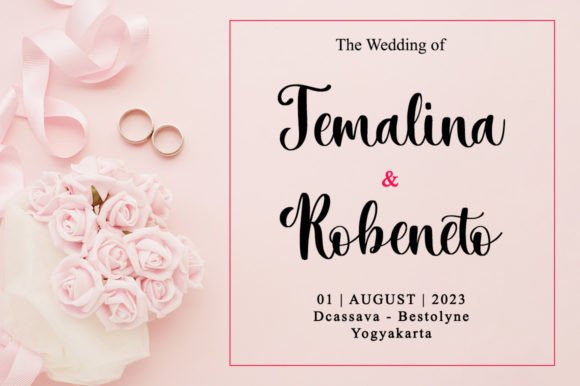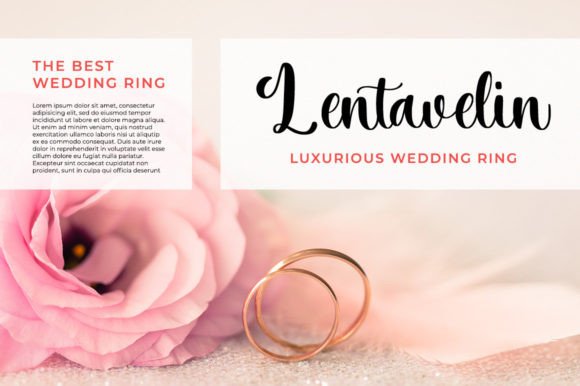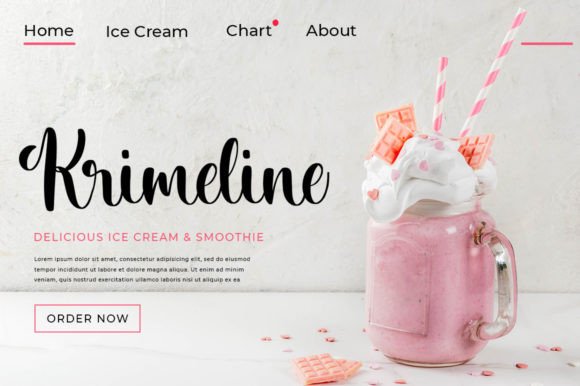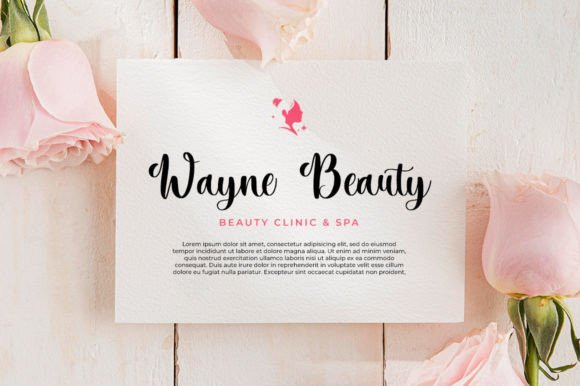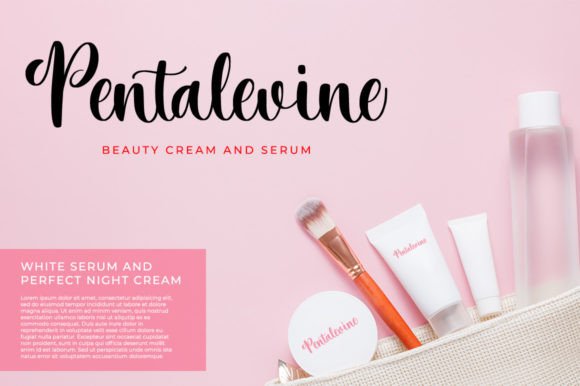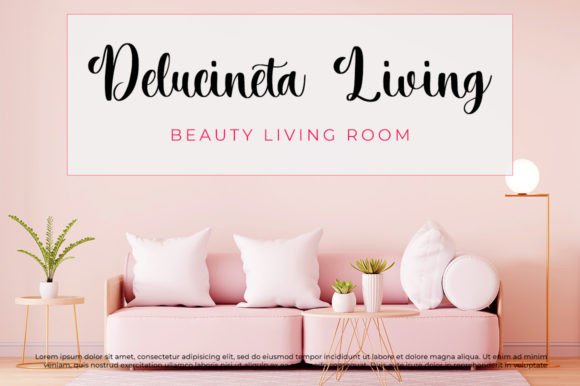
Introduction to Clinomania Font
Have you ever stared at a blank canvas, wondering where to begin your next creative project? The blank page can be intimidating, but what if you had the perfect tool to bring your ideas to life? For designers, finding the right font can make all the difference in elevating a project from ordinary to extraordinary.
Enter the Clinomania Font, a stylish script font that adds a touch of elegance and sophistication to any design. With its high-quality, free download, this design resource is a treasure trove for creative projects. Whether you’re working on a logo, invitation, or social media post, the Clinomania Font is sure to impress with its modern look and feel.
As a valuable resource for designers, the Clinomania Font offers a transparent background, making it easy to use and manipulate in your design. With its versatility and high-quality design, it’s no wonder the Clinomania Font is a top choice for designers looking to add a personal touch to their projects.
Clinomania Font
- High-quality design resource ideal for creative projects, including digital art and graphic design.
- Features a transparent background, allowing for seamless integration into complex designs.
- Designed with a unique aesthetic, Clinomania Font is perfect for designers seeking a distinctive look for their projects.
- Includes a range of characters, including uppercase and lowercase letters, numbers, and special characters, making it a versatile design resource.
Honest Review: Clinomania Font
I recently stumbled upon the Clinomania Font and I must say it’s a great addition to any designer’s toolbox. With a high quality design and a free download option, it’s perfect for any creative project.
What works well about this font is its unique and quirky design, making it a great choice for projects that need a bit of personality. The transparent background also makes it easy to use in various design scenarios. ✨ The font also comes in a range of weights and styles, making it a versatile design resource.
Here are some of the key features that I like about the Clinomania Font:
- High quality design that’s perfect for creative projects
- Transparent background for easy use in various design scenarios
- Range of weights and styles for added versatility
One potential limitation is that the font may not be suitable for projects that require a more formal or traditional look. ⚠️ Additionally, some designers may find the quirky design to be too unconventional for their taste.
Overall, I’m impressed with the Clinomania Font and would definitely recommend it to designers looking for a unique and versatile font for their creative projects.
What is Clinomania Font?
Clinomania Font is a high-quality, free download design resource ideal for creative projects. Its unique style and transparent background make it a versatile choice for various design applications.
Tips for Getting the Most Out of Clinomania Font
Use Clinomania Font in combination with other design elements, such as images and graphics, to create visually appealing designs.
Experiment with different font sizes, styles, and colors to achieve the desired effect.
Common Use Cases for Clinomania Font
Clinomania Font is suitable for a variety of creative projects, including:
Graphic design
Print design
Web design
Branding and marketing materials
Clinomania Font is a modern and elegant script font perfect for creative projects that require a touch of sophistication. It’s ideal for use in branding, advertising, and editorial design. The font features a high-quality, transparent background, making it easy to use on any design surface.
Does the Clinomania Font have a transparent background?
Yes, the Clinomania Font has a transparent background, making it perfect for use on a variety of backgrounds and design elements. This feature allows you to easily combine the font with other design elements and create a seamless visual effect.